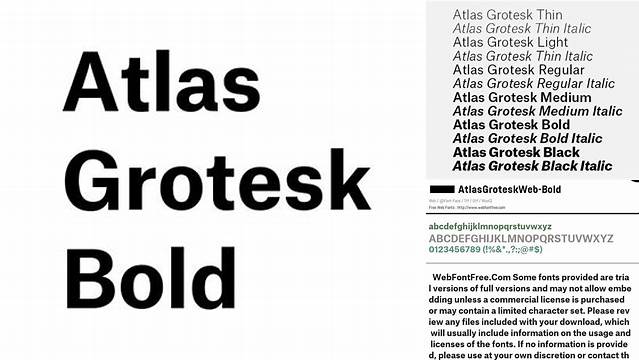
What is Atlas Grotesk Bold?
Atlas Grotesk Bold is more than just a font; it's a statement. This typeface is a modern sans-serif known for its clean lines, excellent legibility, and confident presence. It's a member of the larger Atlas Grotesk family, designed with versatility in mind. The 'Bold' variant amplifies these characteristics, providing added weight and emphasis that makes it ideal for headlines, branding, and display purposes. Its neutral yet impactful design allows it to seamlessly integrate into a wide range of design projects, from corporate reports and website designs to posters and editorial layouts.
The beauty of Atlas Grotesk Bold lies in its ability to communicate effectively without being overly stylized or distracting. Its carefully crafted letterforms ensure readability at various sizes, making it a reliable choice for both print and digital applications. Designers often appreciate its balanced proportions and subtle details, which contribute to a polished and professional aesthetic. Whether you're aiming for a minimalist look or a more dynamic composition, Atlas Grotesk Bold can adapt to your creative vision.
When considering a font for your project, think about the message you want to convey. Atlas Grotesk Bold exudes confidence, clarity, and modernity. It's a font that says, "We mean business," without being aggressive or imposing. This makes it particularly well-suited for brands that want to project an image of reliability, innovation, and trustworthiness. In the following sections, we will explore where to download the Atlas Grotesk Bold font for free and how to use it effectively in your projects, providing valuable insights for designers of all levels.
Why Choose Atlas Grotesk Bold?
When you're weighing your font options, the reasons to choose Atlas Grotesk Bold become pretty clear. It's not just another typeface; it's a carefully crafted tool designed to elevate your work. So, why should you consider adding it to your font library?
First off, let's talk about versatility. This font isn't a one-trick pony. It works wonders across various design scenarios. Need a bold headline that grabs attention? Atlas Grotesk Bold delivers. Creating a sleek website with clear, readable text? Check. Designing a professional brochure that exudes sophistication? It's got you covered. Its neutral yet impactful design ensures it complements rather than clashes with your overall aesthetic.
Legibility is another key factor. What's the point of a beautiful font if nobody can read it? Atlas Grotesk Bold excels in this area. Its well-defined letterforms and balanced spacing make it easy on the eyes, whether it's displayed on a large poster or a small mobile screen. This is crucial for ensuring your message gets across effectively, regardless of the medium.
Now, let's get to the impact factor. The Bold variant of Atlas Grotesk adds a layer of emphasis and authority to your text. It commands attention without being overly aggressive or distracting. This makes it ideal for highlighting key information, creating a sense of urgency, or simply adding visual interest to your designs. Whether you're designing a call to action button or crafting a compelling headline, Atlas Grotesk Bold helps you make a statement.
Finally, consider the overall aesthetic. Atlas Grotesk Bold embodies modernity and professionalism. It's a font that conveys clarity, confidence, and trustworthiness. This makes it a great choice for brands that want to project an image of reliability and innovation. In short, choosing Atlas Grotesk Bold is a strategic decision that can enhance the impact and effectiveness of your design work. In the following sections, we will explore where to download the Atlas Grotesk Bold font for free and how to use it effectively in your projects, providing valuable insights for designers of all levels.